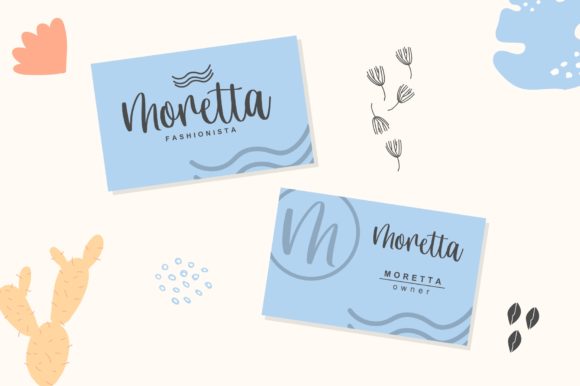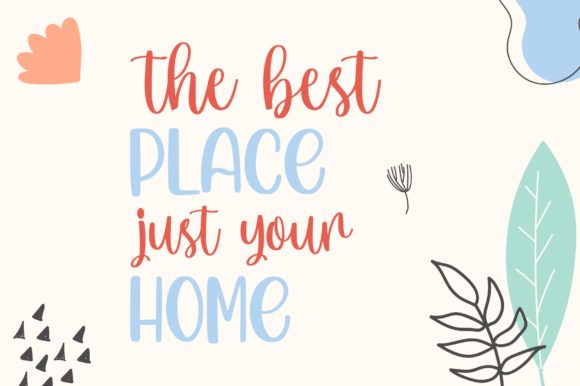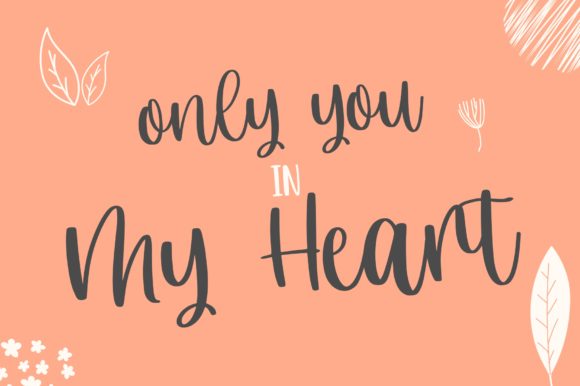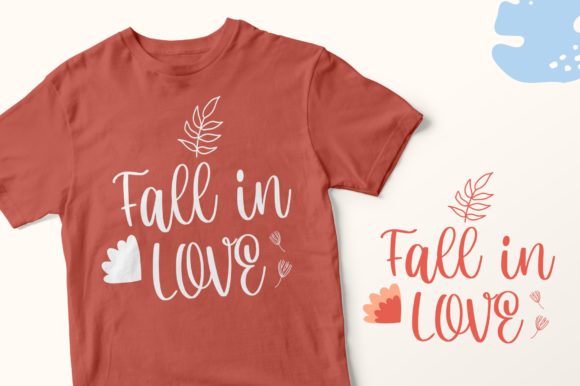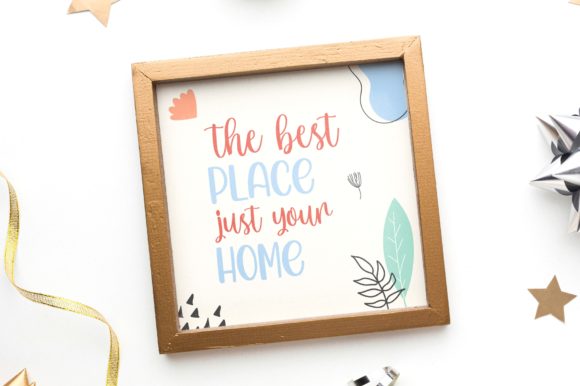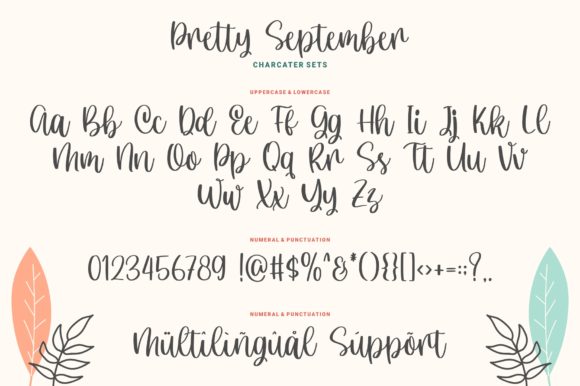
Introduction to Pretty September Font
Pretty September is an adorable quirky handwritten font.
It will add an incredibly joyful touch to your designs Fall in love with its playful style and use it to create beautiful stationary art, eye-catching social media posts, and much more.